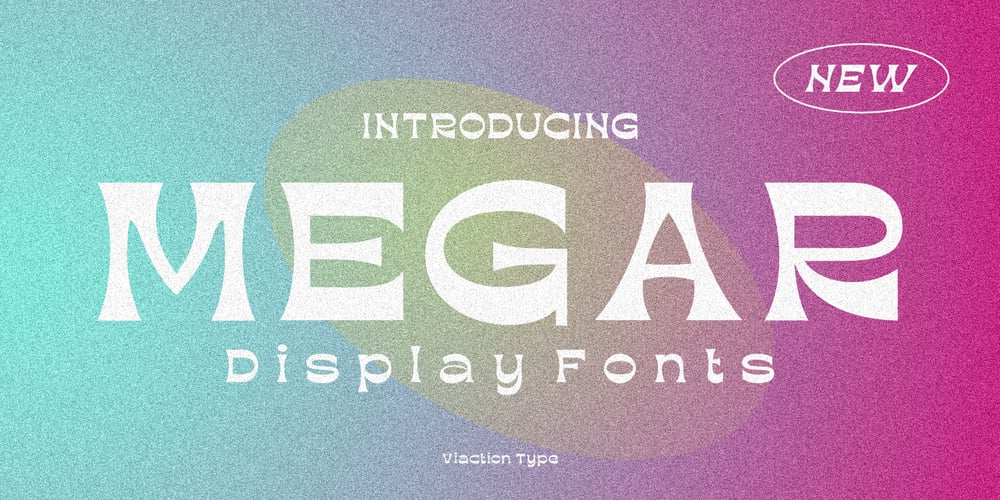
Megar Font Family was designed by Lukman Hidayat and published by Viaction Type.Co. Megar contains 1 styles and family package options. Megar is a display font with a bold retro feel and available in 2 styles, regular & oblique. It is suitable to complement your work with a retro or pop art theme. Megar is sold at affordable prices and you will get lots of bonus background gradient & gradient shapes. Get this font right now!Don’t miss this product from us! Also check out our other products.Viaction Type